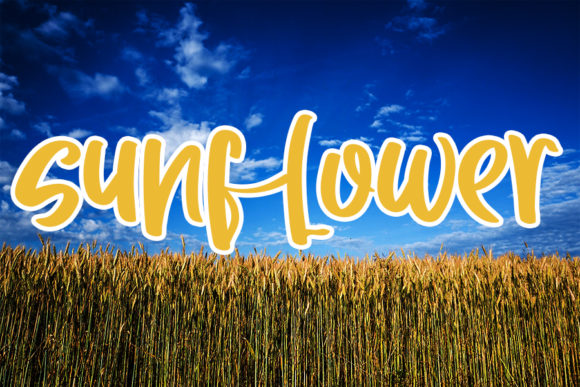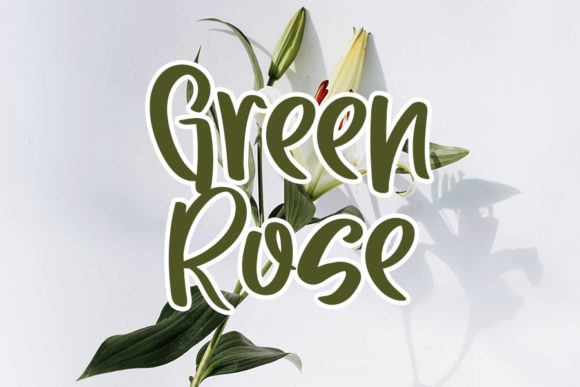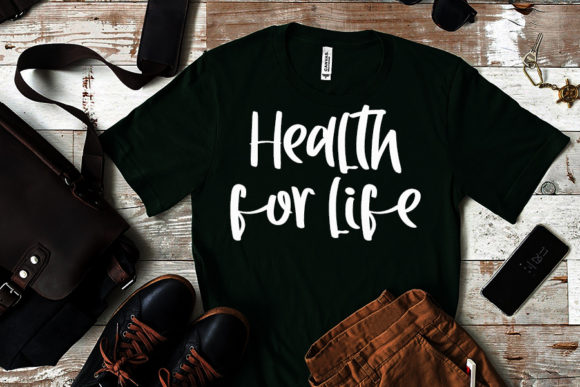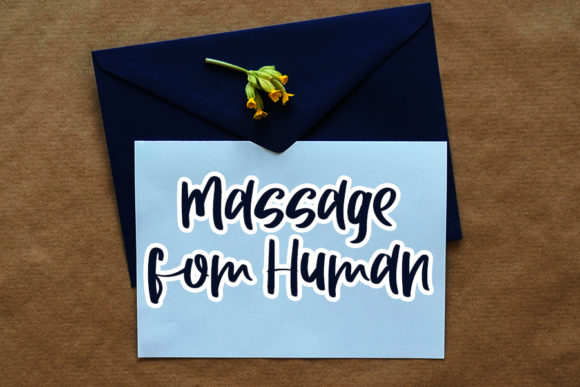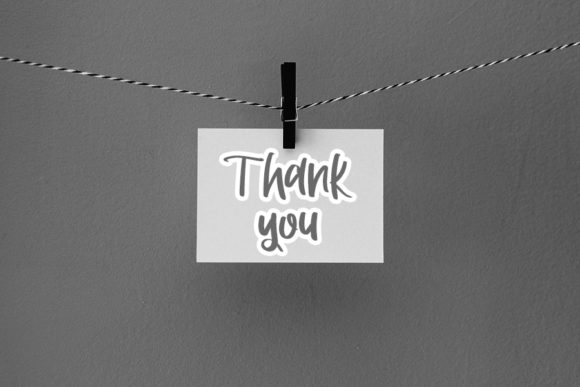
The Joy of Handwritten Fonts: Introducing Beautiful Font
Do you remember that moment when you stumbled upon the perfect font for your project, and suddenly everything clicked into place? It’s like finding a missing piece of a puzzle, and your creativity is unleashed. That’s exactly what happened when I discovered the Beautiful Font – a sweet and joyful handwritten font that stole my heart.
The Beautiful Font is more than just a pretty face; it’s a powerful tool designed to elevate your designs and leave a lasting impression. With its incredibly distinct and timeless style, this font is perfect for creating spectacular designs that exude warmth and personality. Whether you’re a seasoned designer or just starting out, the Beautiful Font is an invaluable addition to your toolkit.
As a designer, you know how challenging it can be to find the right font to convey your message. That’s why the Beautiful Font is such a valuable asset – it’s a game-changer that will help you create stunning designs that capture the essence of your brand.
Key Features of Beautiful Font
- Unique Characteristics: Beautiful Font features a unique blend of elegance and sophistication, with intricate details and subtle flourishes that set it apart from other fonts.
- Kerning and Ligatures: Beautiful Font includes advanced kerning and ligature features, ensuring that letters and letter combinations are displayed with precision and harmony.
Beautiful Font Review
Overall, I was really excited to dive into the Beautiful Font and see what it had to offer. Here are my thoughts:
- The ligatures are a game-changer. They add a level of sophistication to the font that’s hard to match.
- The variations in weight and style are plentiful, making it easy to find the perfect fit for your design.
- The OpenType features are well-implemented and make it easy to add subtle details to your text.
- The font is quite large, which can make it difficult to use in smaller contexts.
- The line spacing can be a bit inconsistent at times, which may require some extra tweaking.
I’d say the Beautiful Font is a solid choice for anyone looking to add a touch of elegance to their designs. While it may have a few limitations, the benefits far outweigh the drawbacks. With a little bit of creativity and experimentation, this font can really shine. Just be sure to keep an eye on the size and line spacing to get the best results.
Tips for Getting the Most Out of Beautiful Font
Use Beautiful Font for headings and titles to add a touch of elegance to your designs.
Combine Beautiful Font with other elegant fonts to create a sophisticated look.
Business cards and marketing materials.
Editorial and publishing projects.
Alternatives to Beautiful Font for Designers
Playfair Display is a luxurious and elegant font suitable for titles and headings. It is ideal for use in magazines, advertisements, and luxury branding.
Comparison to Beautiful Font: Playfair Display is more ornate and formal, making it suitable for high-end branding and publishing. It has a more classical feel compared to the modern, sleek look of Beautiful Font.
Great Vibes is a modern and sophisticated font perfect for use in digital design, logos, and branding. It is ideal for creating a friendly and approachable atmosphere.
Comparison to Beautiful Font: Great Vibes has a more relaxed and casual feel compared to the sleek and modern look of Beautiful Font. It is better suited for digital design and branding that requires a friendly and approachable tone.
Merriweather is a classic and traditional serif font suitable for body text and large blocks of content. It is ideal for use in publishing, academic writing, and formal documents.